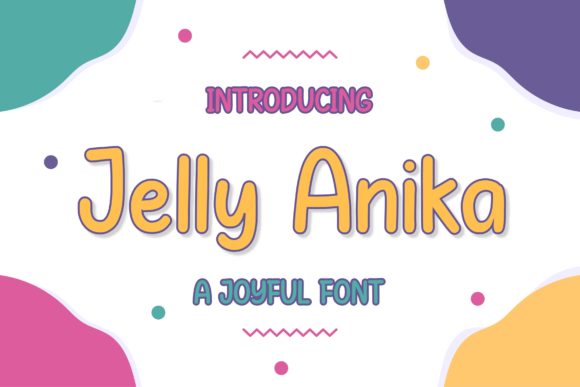
Are you seeking an extraordinary and vivacious display font that captivates with its playful vibes? Look no further than Jelly Anika, the font that embodies fun, quirkiness, and authenticity like no other. Its charming and vibrant persona will transform your creative ideas into remarkable standouts.
Glide into a world of imagination with Jelly Anika, where childlike playfulness and creativity dance hand in hand. With its whimsical and energetic style, this font breathes life into kids and school projects, making them pop with personality and charm.
Unleash the magic of Jelly Anika and watch your designs metamorphose into captivating visual wonders. Its unique appeal adds a touch of magic to logos, branding designs, social media posts, merchandise, and any project seeking a dash of zest and cheer.
Tap into Jelly Anika's irresistible allure and transport your audience to a realm of joy and delight. Its playful nature captivates hearts, leaving an unforgettable impression that lingers long after the last letter fades.